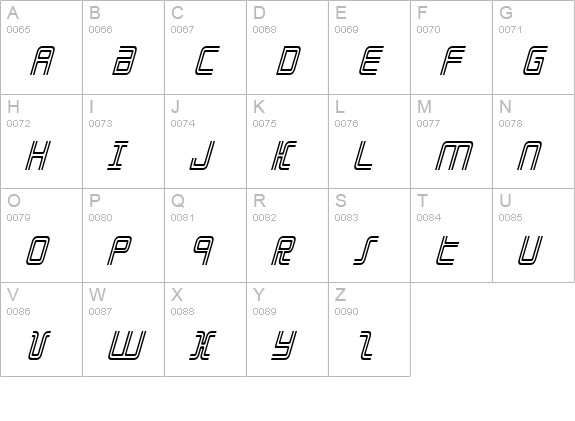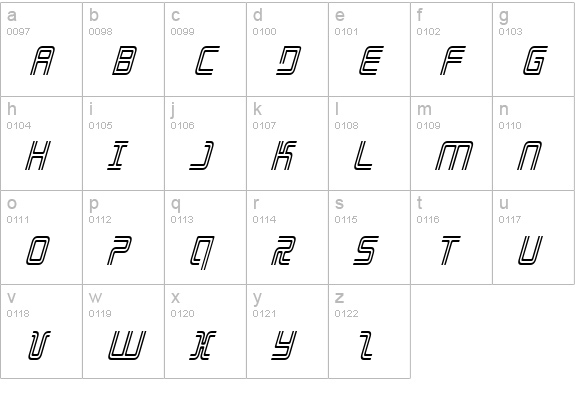
Election Day Condensed Italic is a distinctive, condensed-width, italic variant in the Election typeface family \xE2\x80\x94 well suited to design and typography projects.
Election Day Condensed Italic font is a sleek and modern typeface perfect for adding a touch of sophistication to your designs. Its condensed structure exudes a sense of elegance and professionalism, making it ideal for headlines, titles, and branding projects. The italic style adds a dynamic and stylish flair to your text, making it stand out from the crowd. And the best part? Election Day Condensed Italic font is available for **free** download at FontsMarket.com! Don't miss out on this opportunity to elevate your design projects with this versatile and eye-catching font. Download it today and bring a touch of class to your creations.